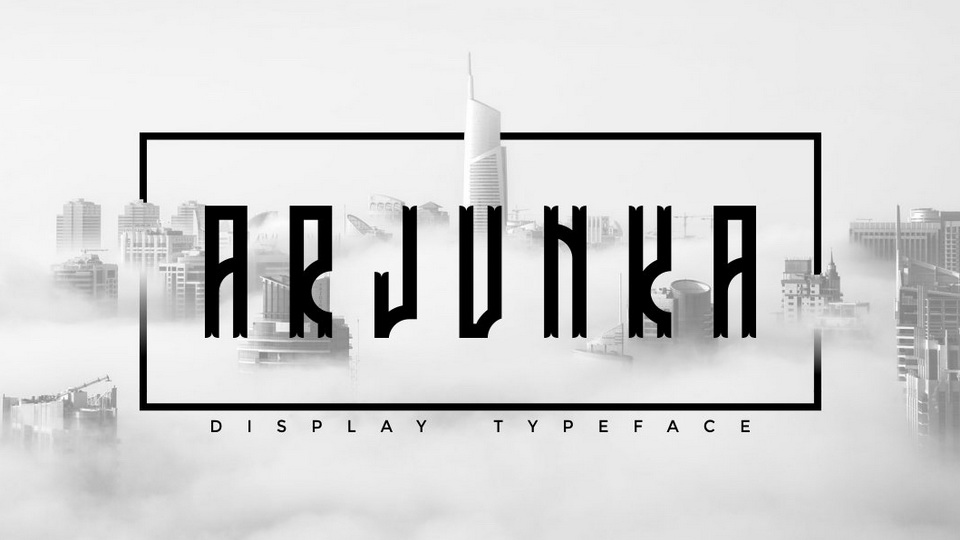
Download Arjunka font, a unique and creative display typeface. Suitable for logos, T-shirt, apparel, product packaging, tittle header, poster, merchandise, social media, labels and more.